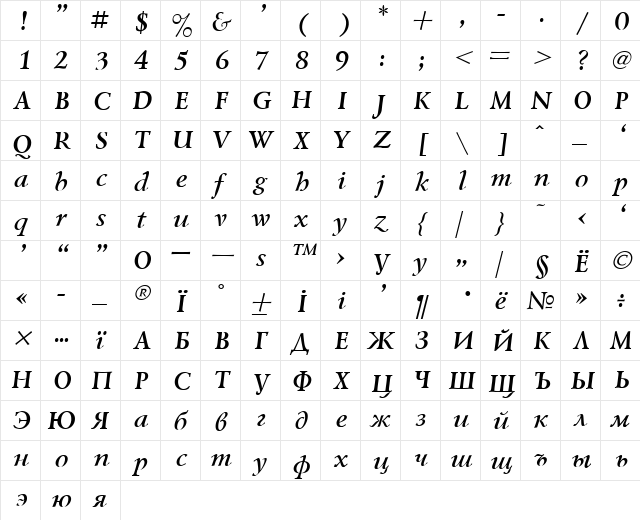
Lazursky Bold Italic Font Preview
Design Context for Lazursky Typeface
Lazursky takes a measured approach to typography — its balanced proportions and neutral character make it a reliable workhorse for both digital and print work. Its italic angle brings a sense of urgency and motion to the letterforms. The heavy weight commands attention and anchors typographic hierarchies.